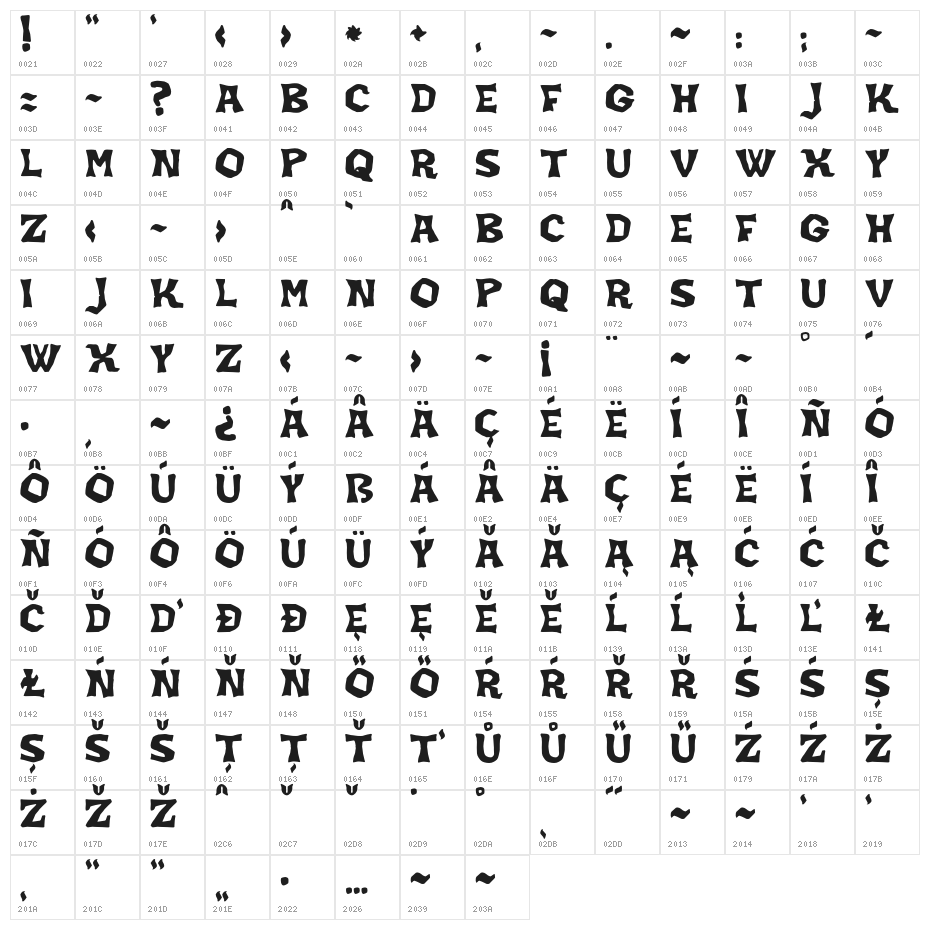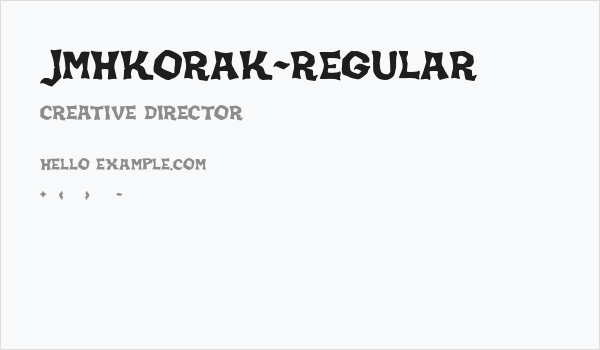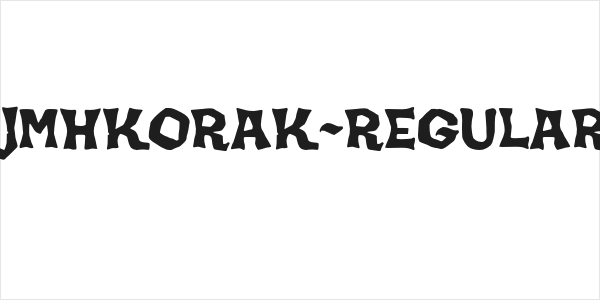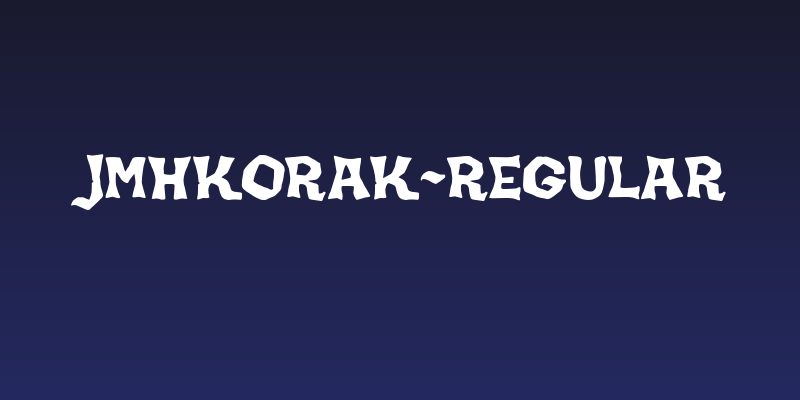
JMHKORAK-Regular Font
JMHKORAK-Regular Description
This font features a bold and dynamic style with a strong presence. The characters have a rugged, hand-drawn appearance, giving them a unique and artistic flair. The strokes are uneven, adding to the organic feel of the typeface. The uppercase letters are particularly striking, with sharp angles and a slightly irregular baseline that enhances the font's distinctive look. The special characters and numbers maintain the same bold and expressive style, ensuring consistency throughout the font. This typeface is ideal for projects that require a bold statement and a touch of creativity.
| Proposed Projects | Ideal for posters, album covers, branding, and creative projects that need a bold and artistic touch. |